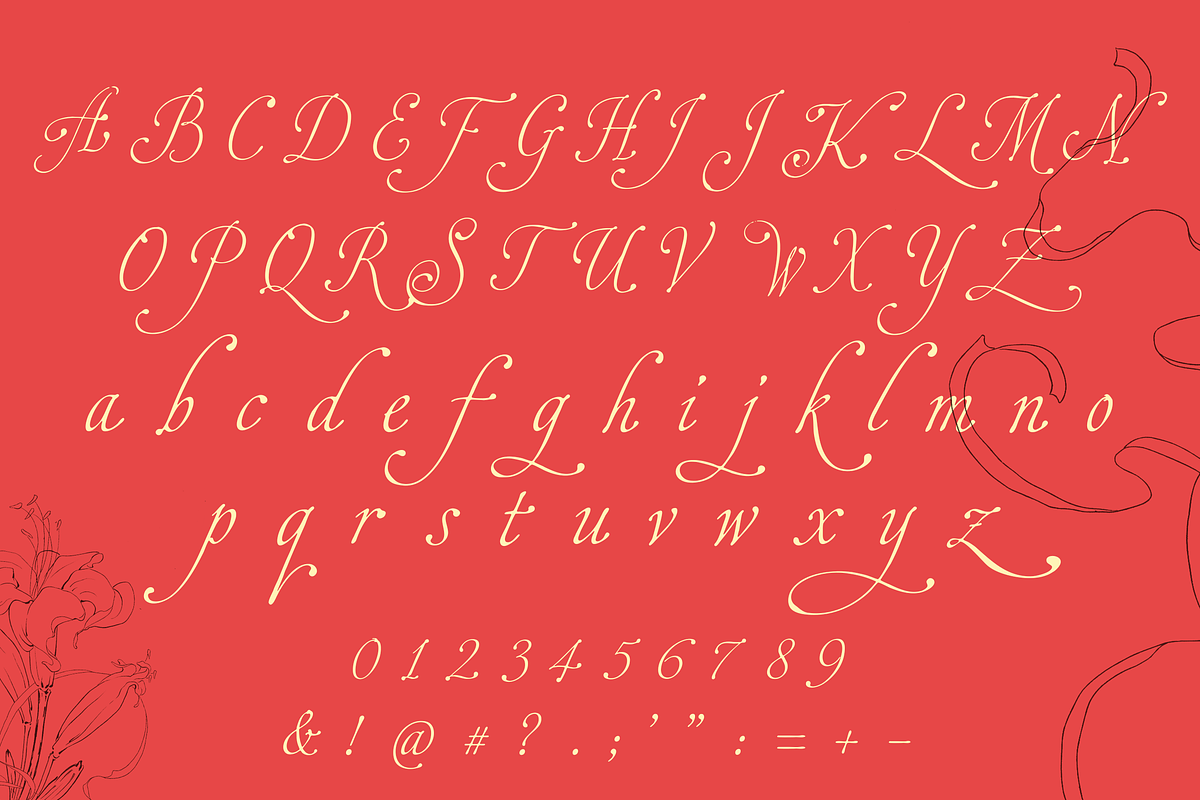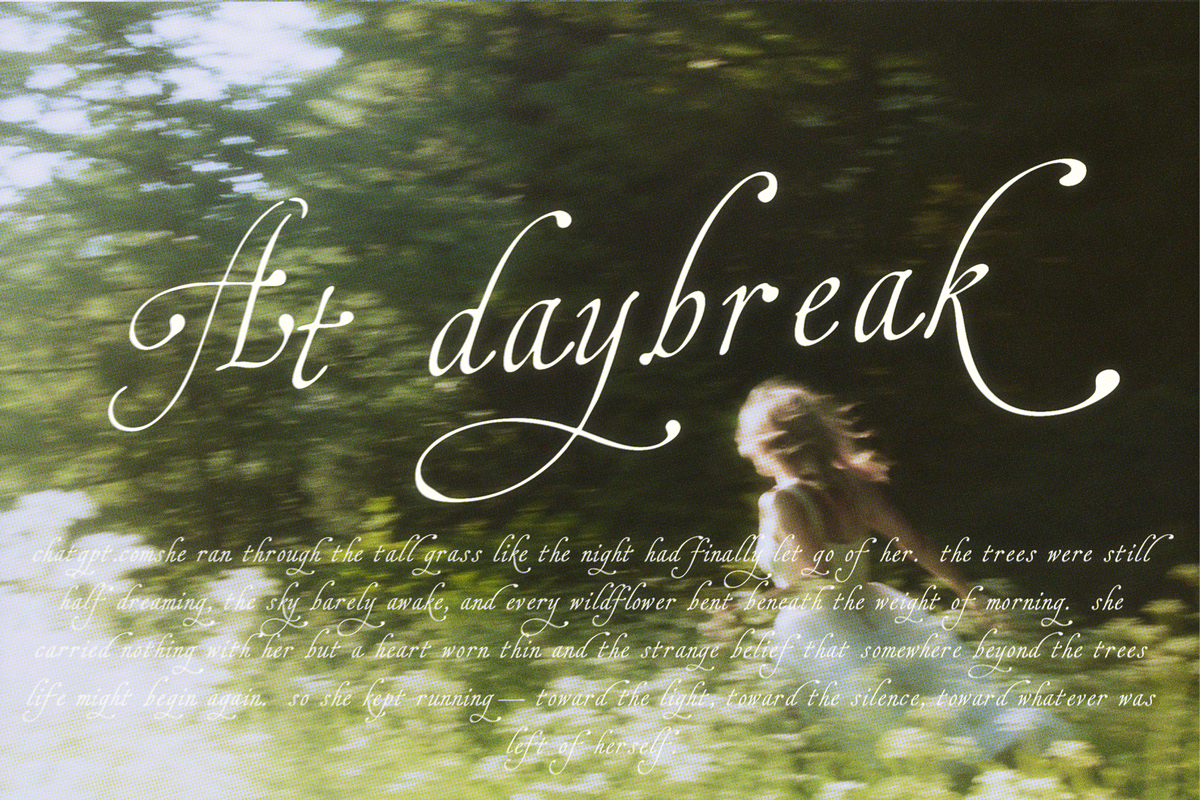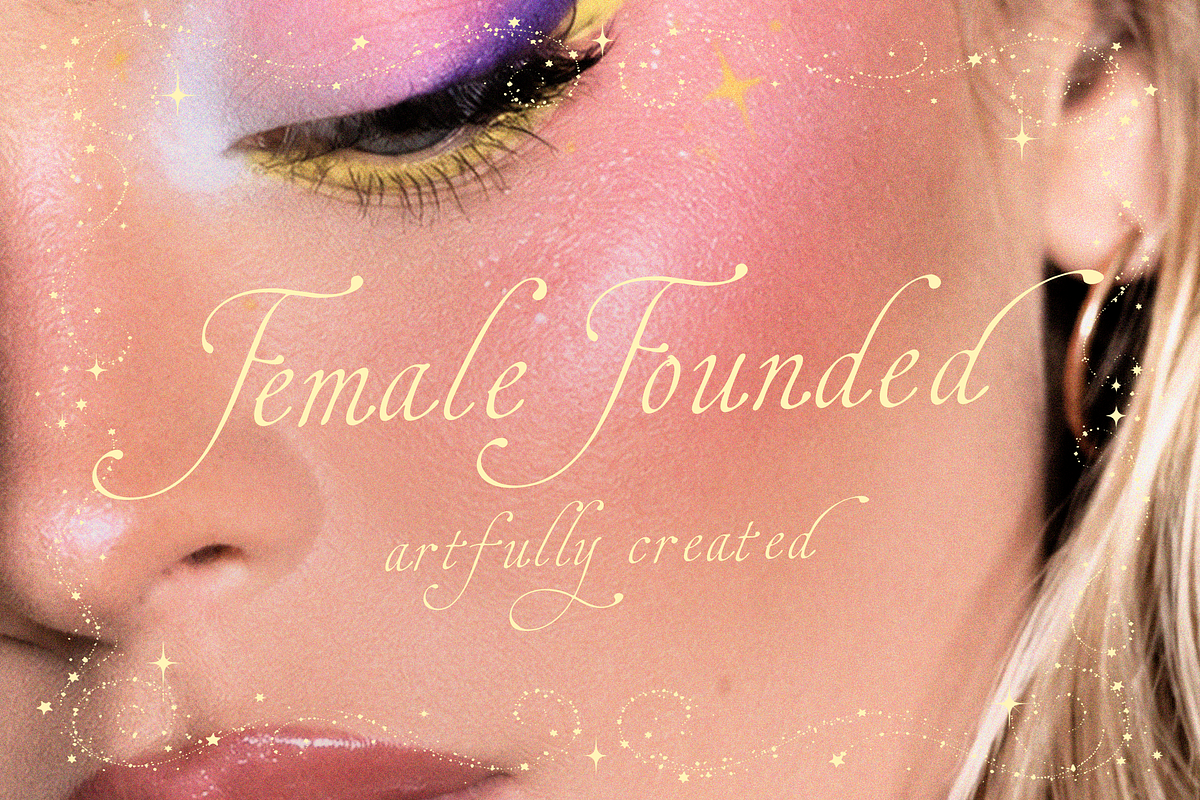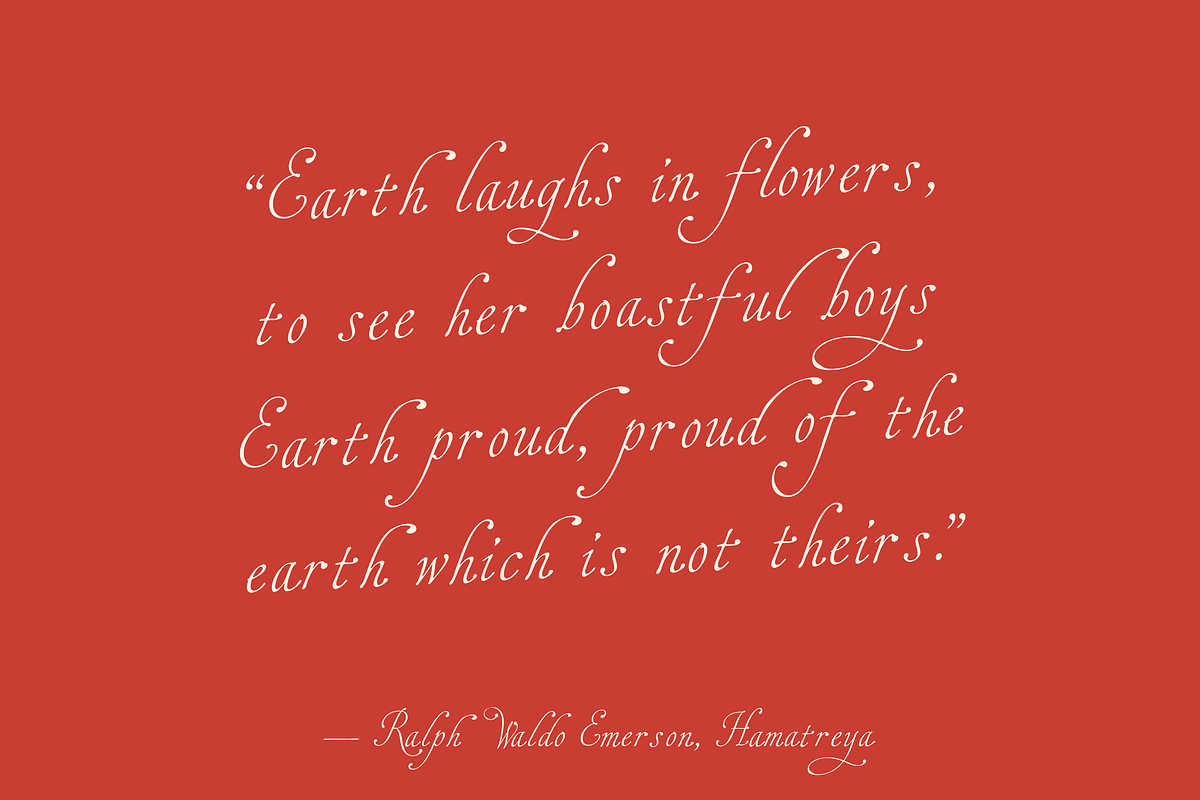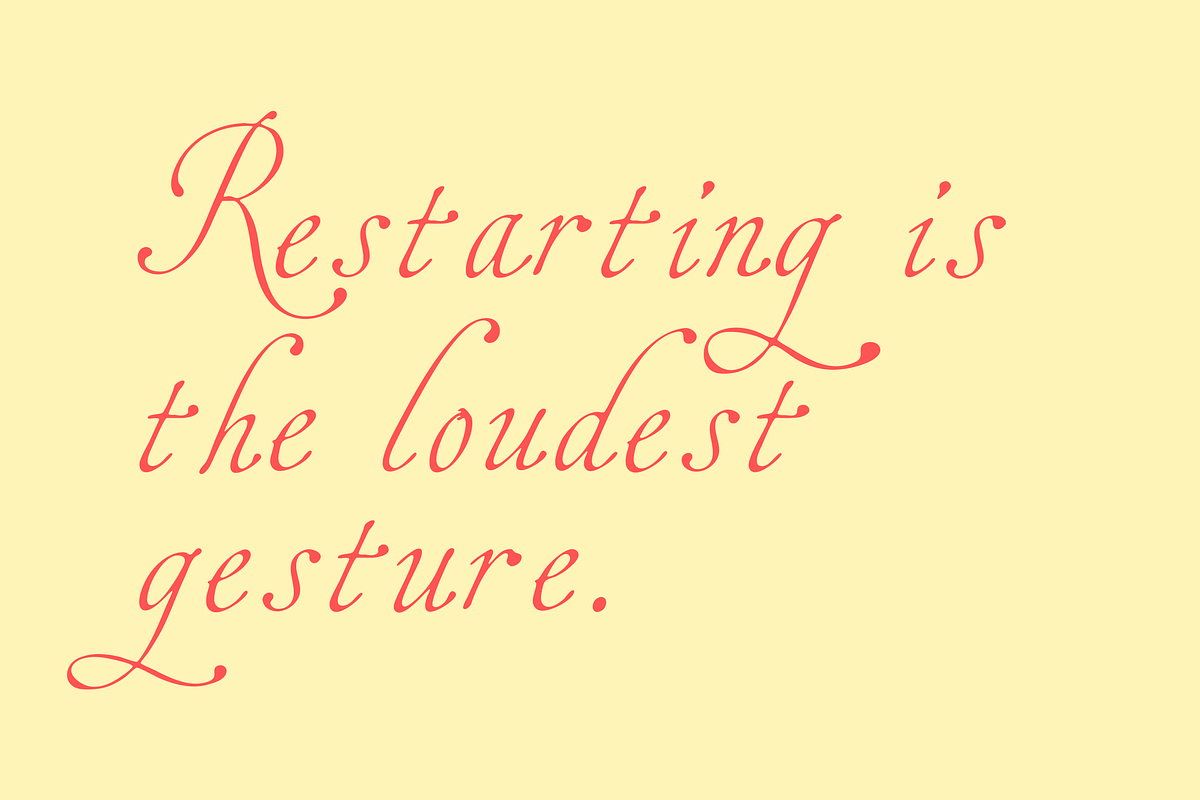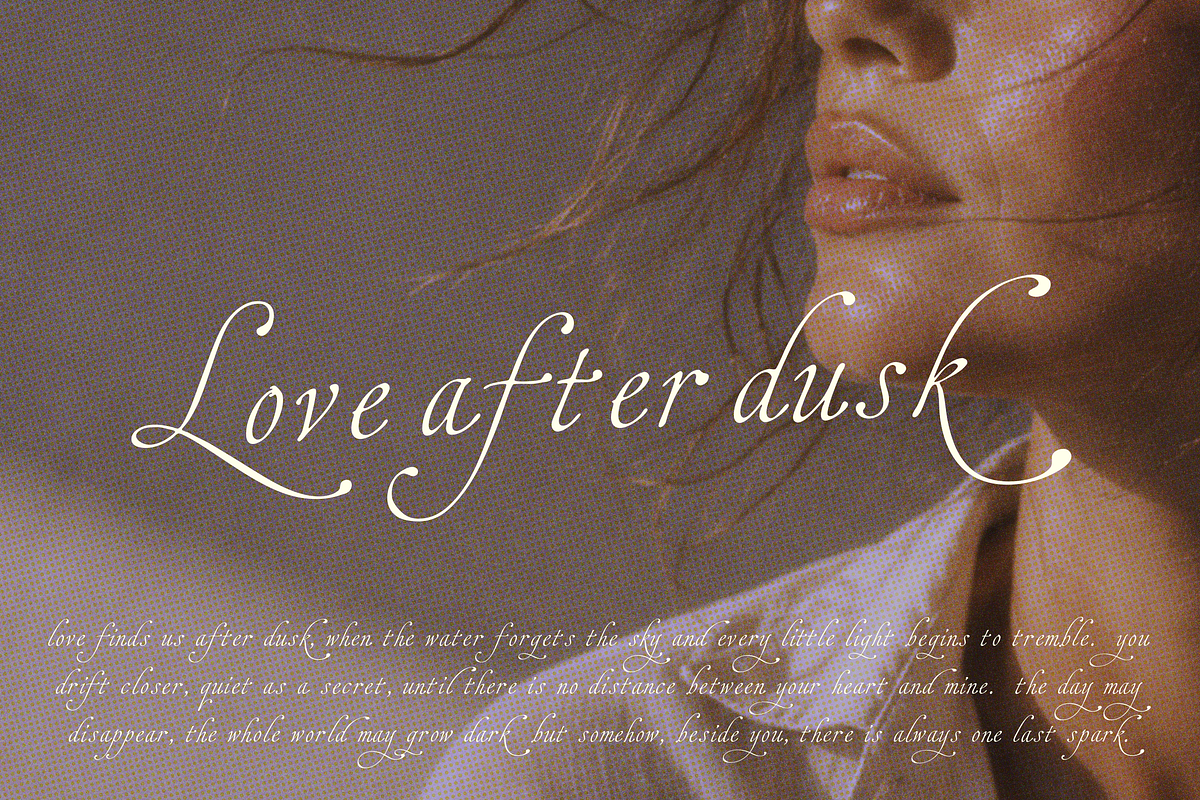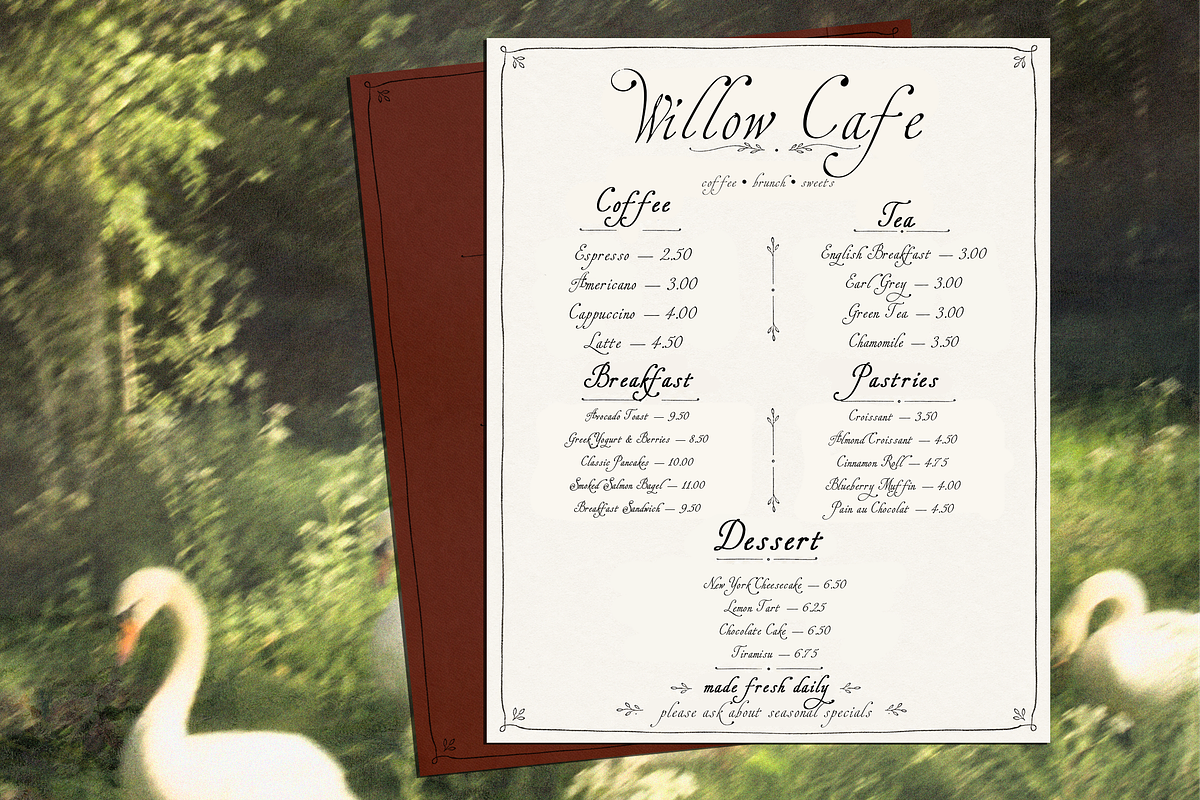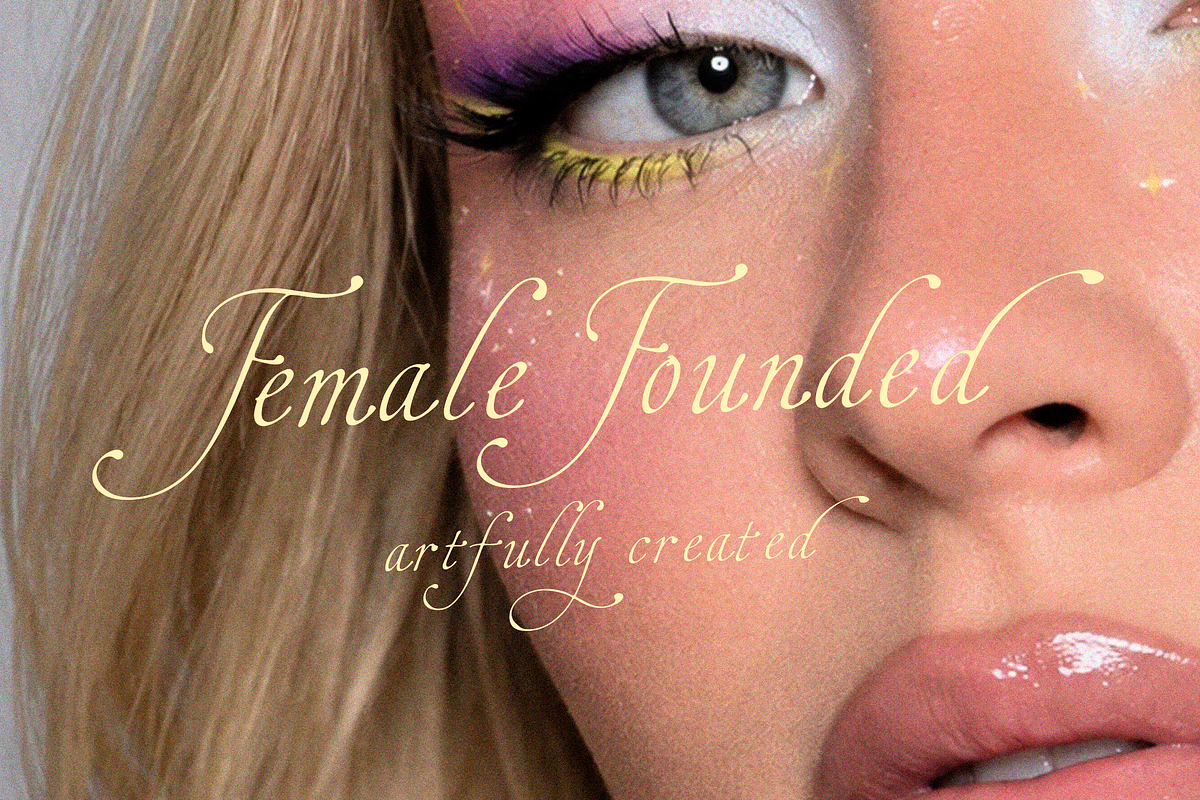
Kennedia - Script
Kennedia - Script Font
Kennedia an elegant, romantic script typeface created with delicate curves, graceful contrast, and expressive flourishes. Inspired by traditional calligraphy and refined vintage penmanship, Kennedia brings a soft, feminine character to every composition.
Its slender letterforms, sweeping swashes, elongated loops, and ornamental terminals give the font a sophisticated yet slightly whimsical personality. The uppercase characters are especially decorative, making Kennedia beautiful for statement words, monograms, names, and elegant headlines, while the lowercase remains graceful and readable for longer phrases.
Kennedia is a lovely choice for wedding stationery, bridal branding, beauty and skincare packaging, perfume labels, feminine logos, fashion editorials, boutique identities, invitations, poetry, book covers, social media graphics, and luxury packaging.
Perfect for designs that call for something romantic, timeless, poetic, and effortlessly refined.
Kennedia works beautifully for:
Logos & branding
Wedding invitations
Bridal stationery
Editorial design
Beauty & perfume branding
Packaging & labels
Fashion projects
Book and magazine covers
Quotes & poetry
Monograms
Boutique and feminine businesses